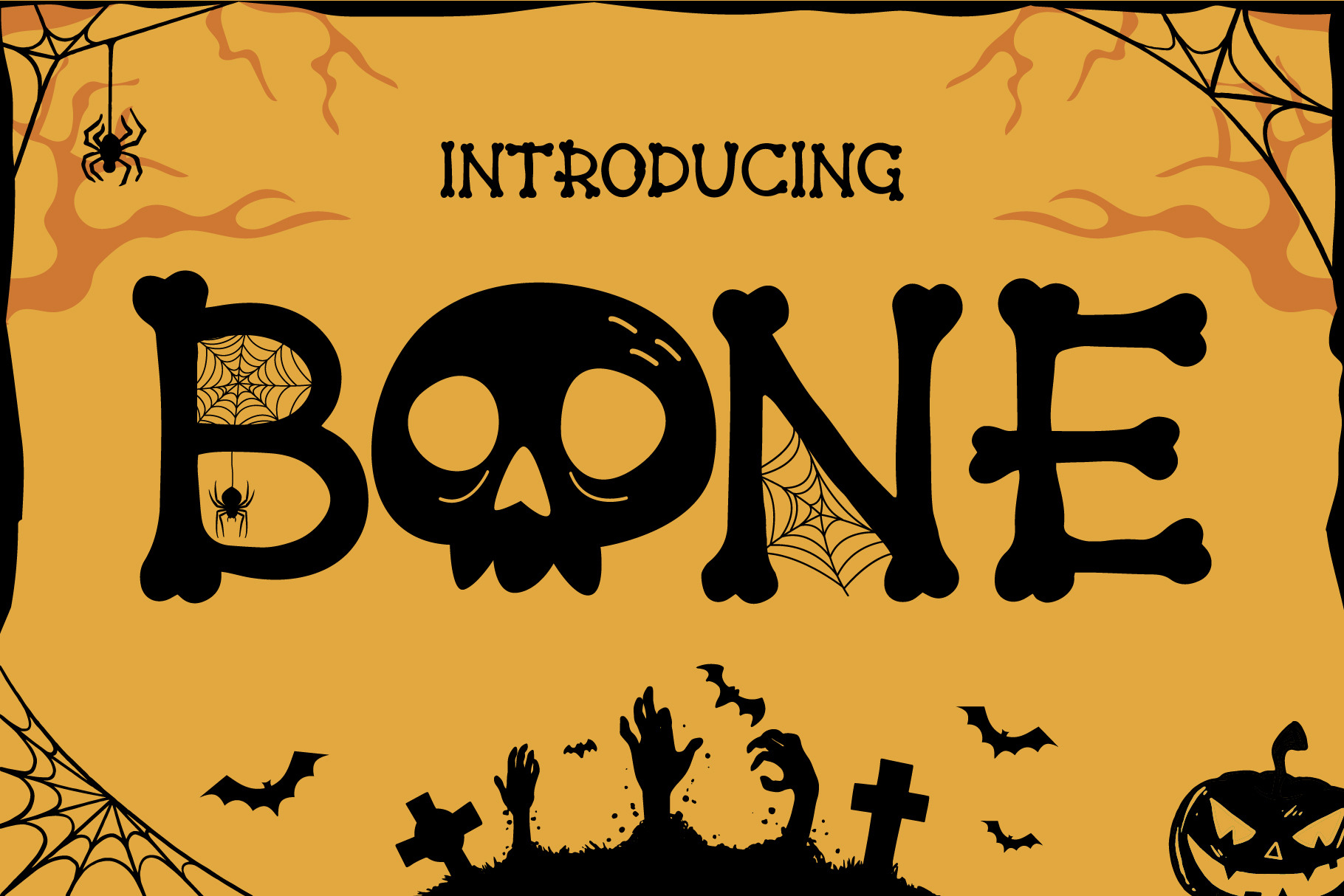
Bone Fonts
Bone is a fun decorative font with a Halloween vibe. It is suitable for a variety of designs such as Halloween and children’s themes. It is perfect for logos, T-shirts, papers, print designs, website headers, photo frames, flyers, music covers, posters, image sliders, and much more.